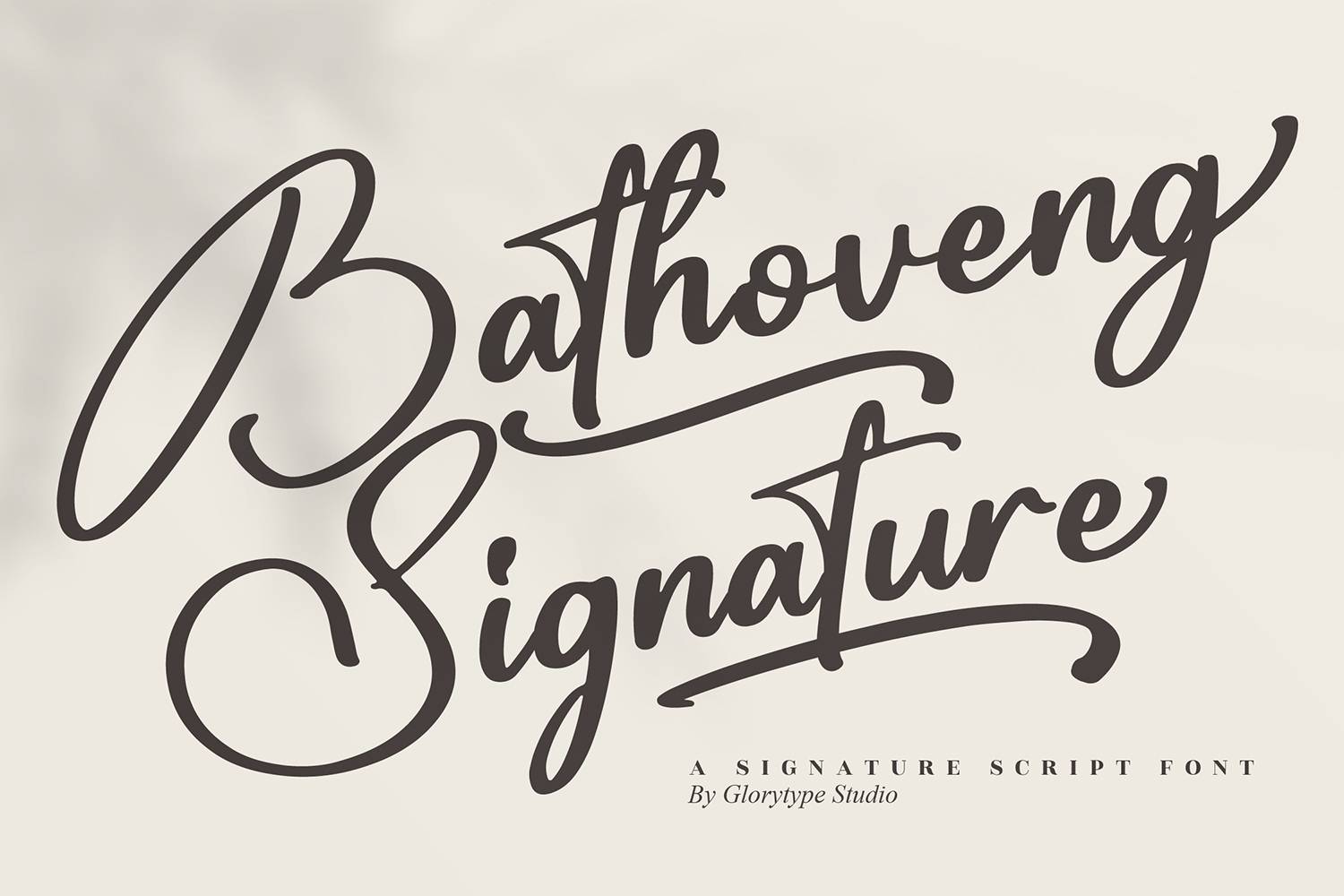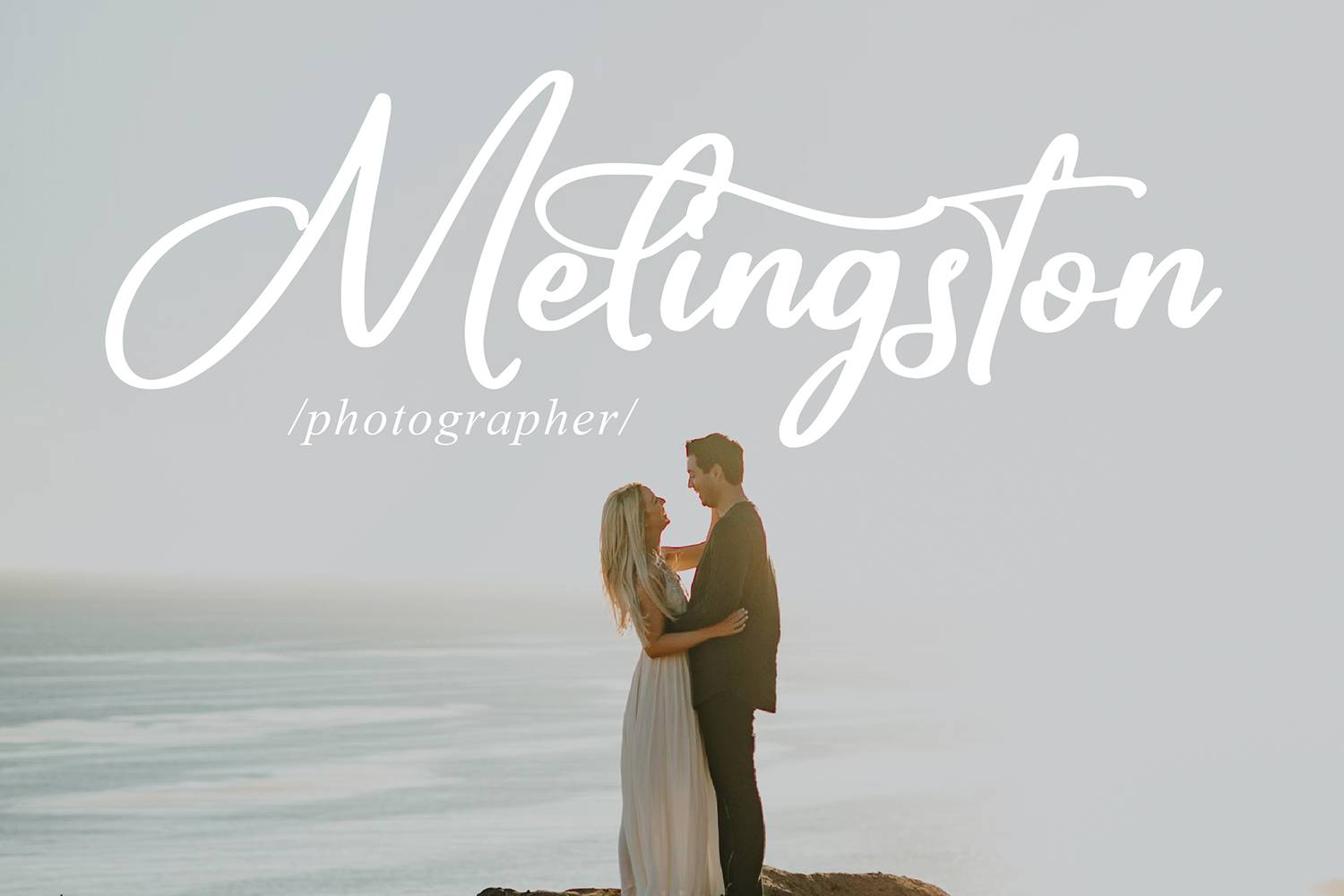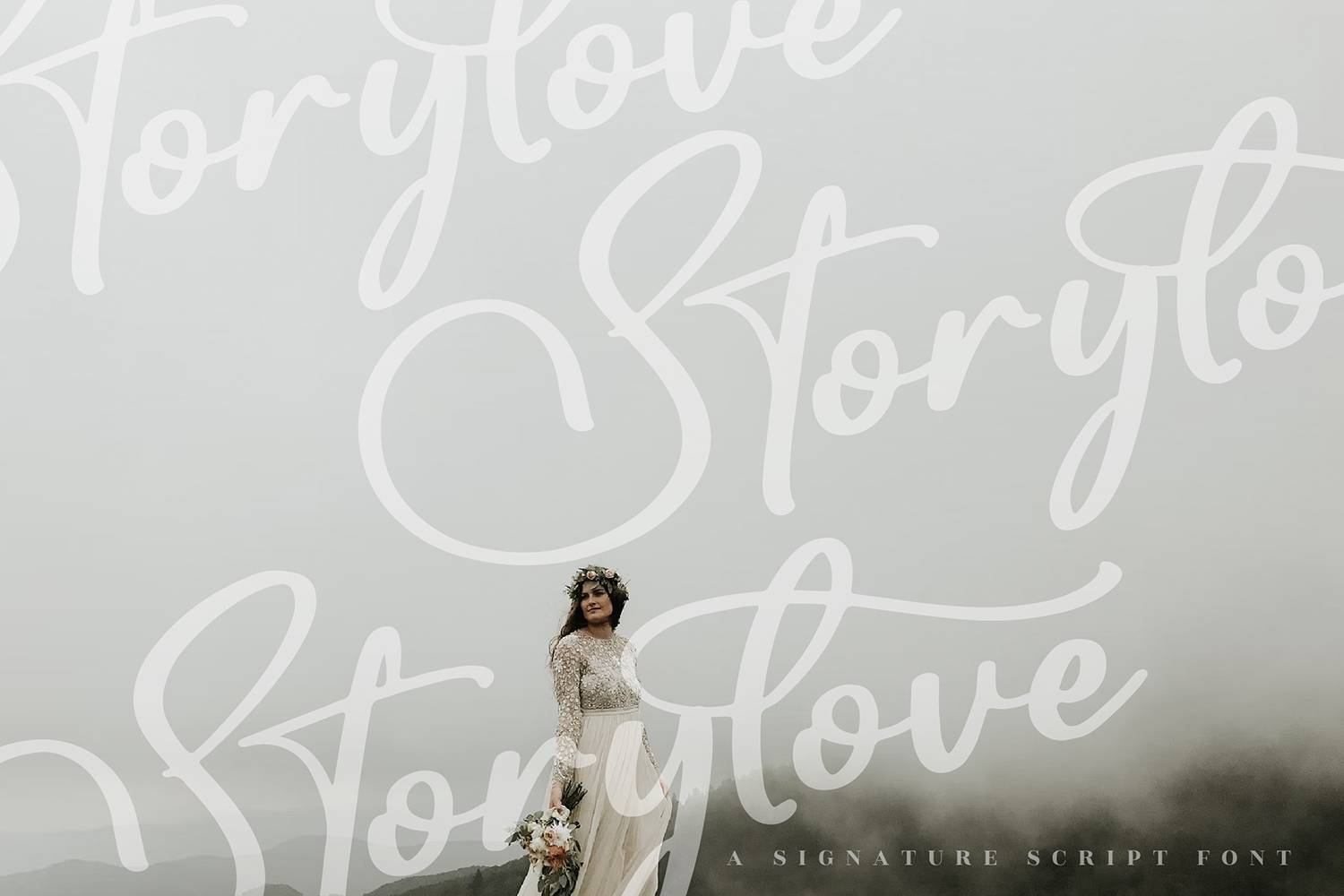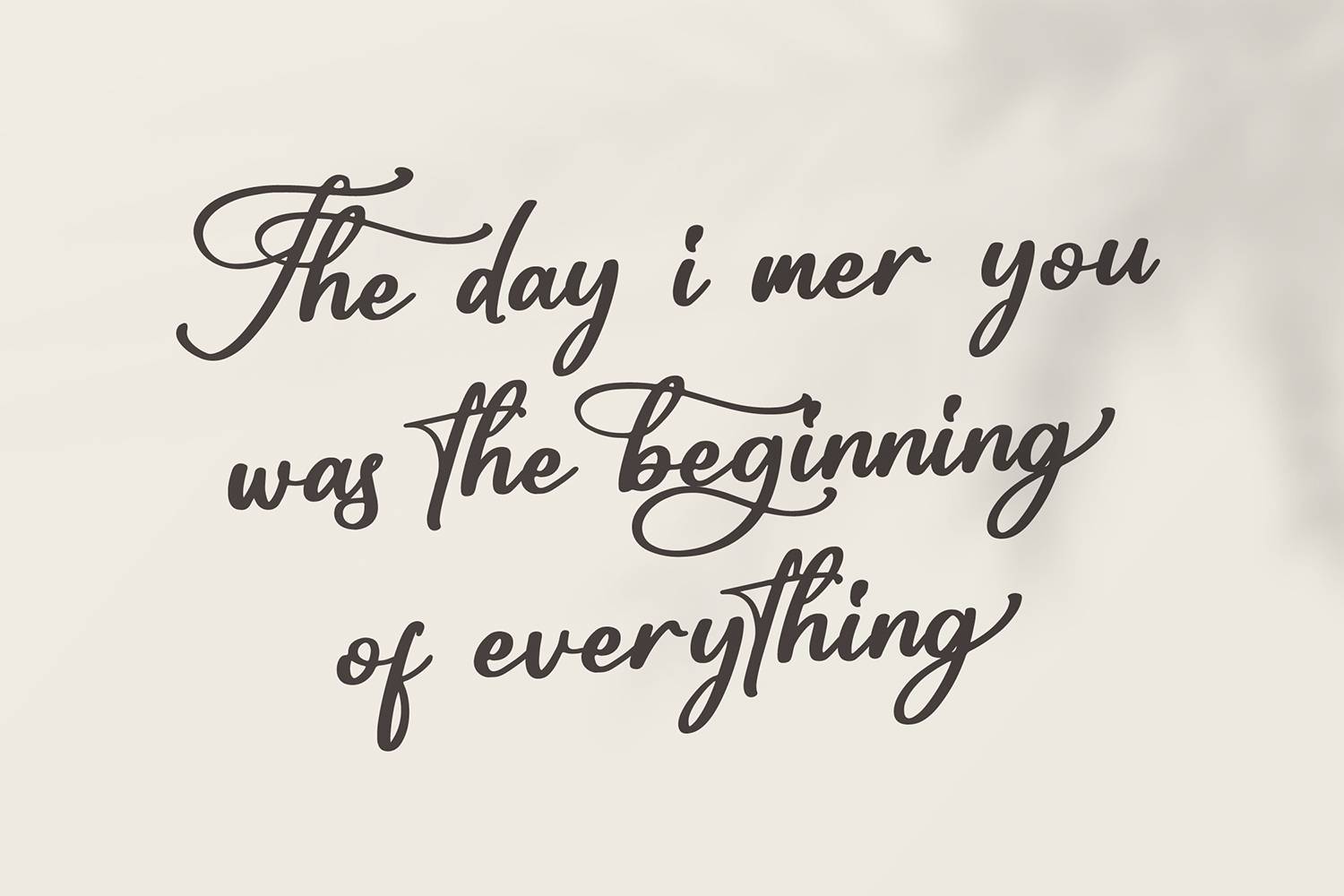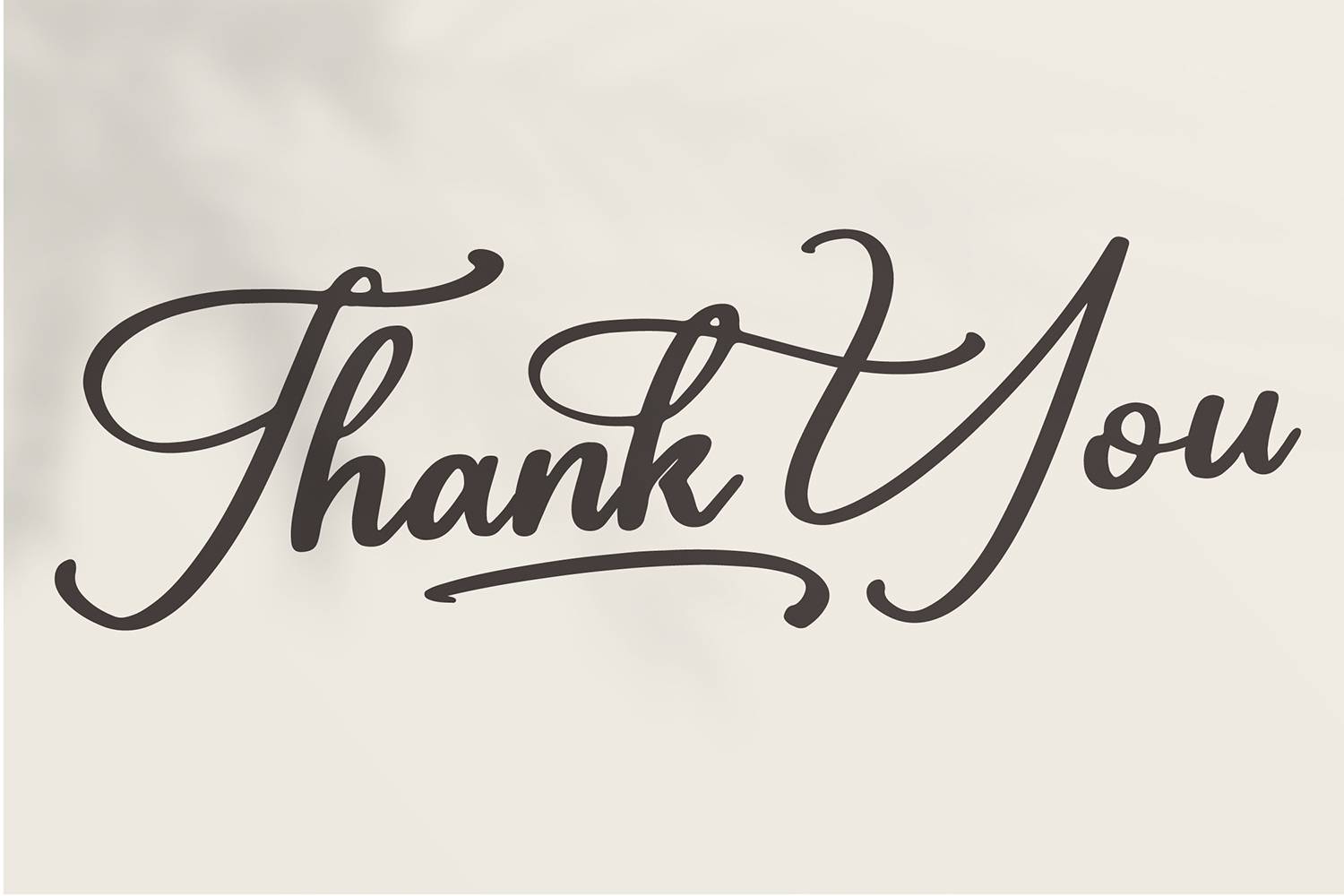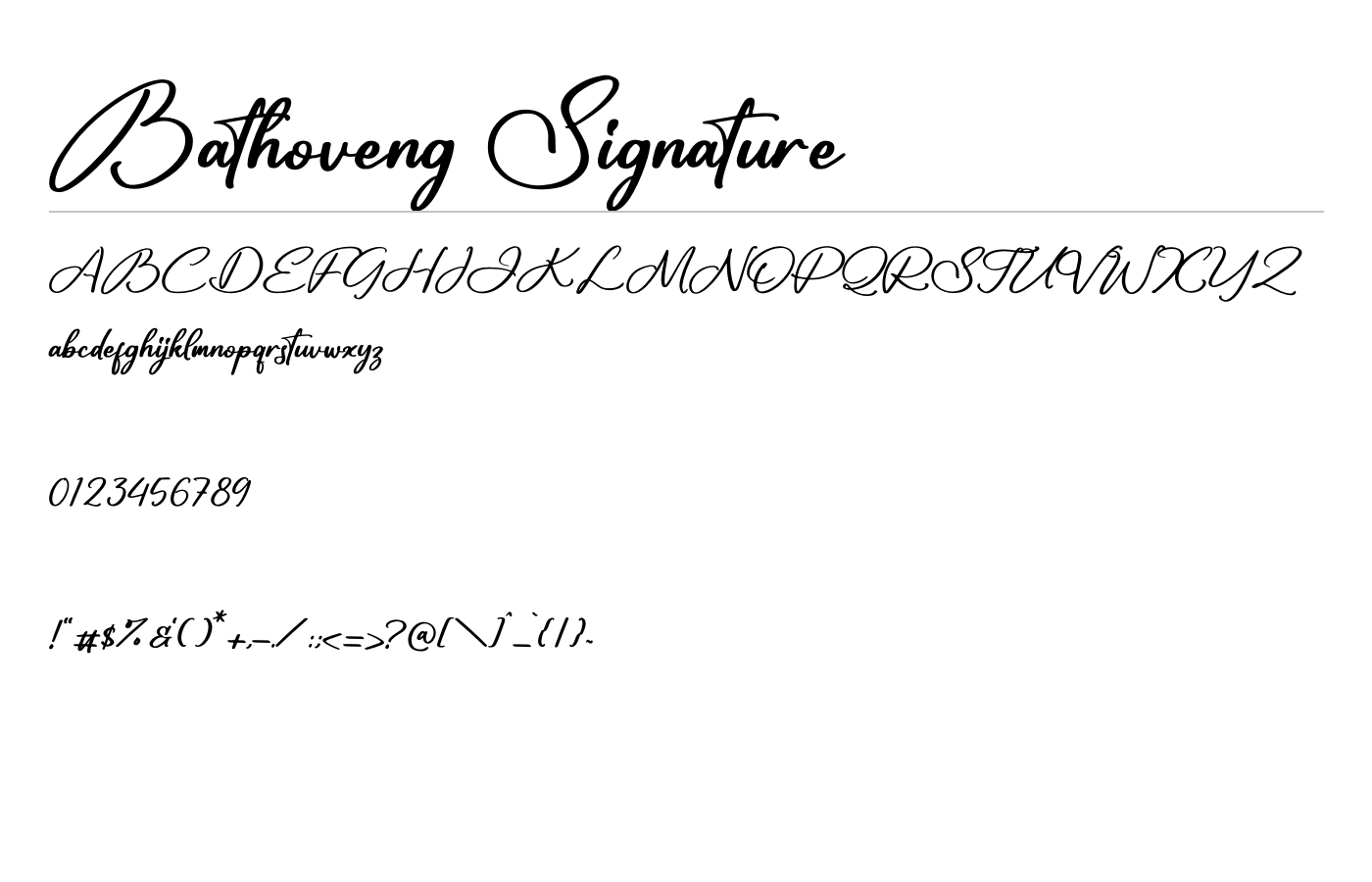
Bathoveng Signature Font is a stylish script typeface that captures the elegance and fluidity of authentic handwritten signatures. With its delicate strokes, high contrast, and sophisticated curves, it conveys a personal yet refined feel, making it perfect for luxury branding, invitations, and artistic logos. This font works especially well in designs that seek a graceful, modern touch with a warm, approachable personality.
Bathoveng Signature Font
About Bathoveng Signature Font